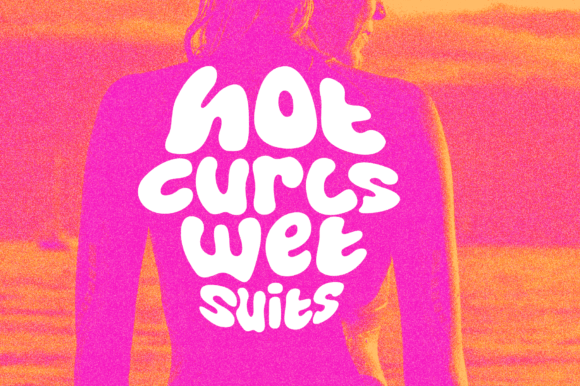
Island Life Font
Island Life is a font often found on lo-fi surf movie posters, t-shirts and decals, it’s an aesthetic that promotes a laid-back, summer loving style.
It’s the perfect font for the summer season and works great across posters, logos, t-shirts, menus and more. I recommend first laying out your text and then experimenting with warp, wave and bulge effects for some excellent results. Check out the visuals to see it in action. Enjoy!